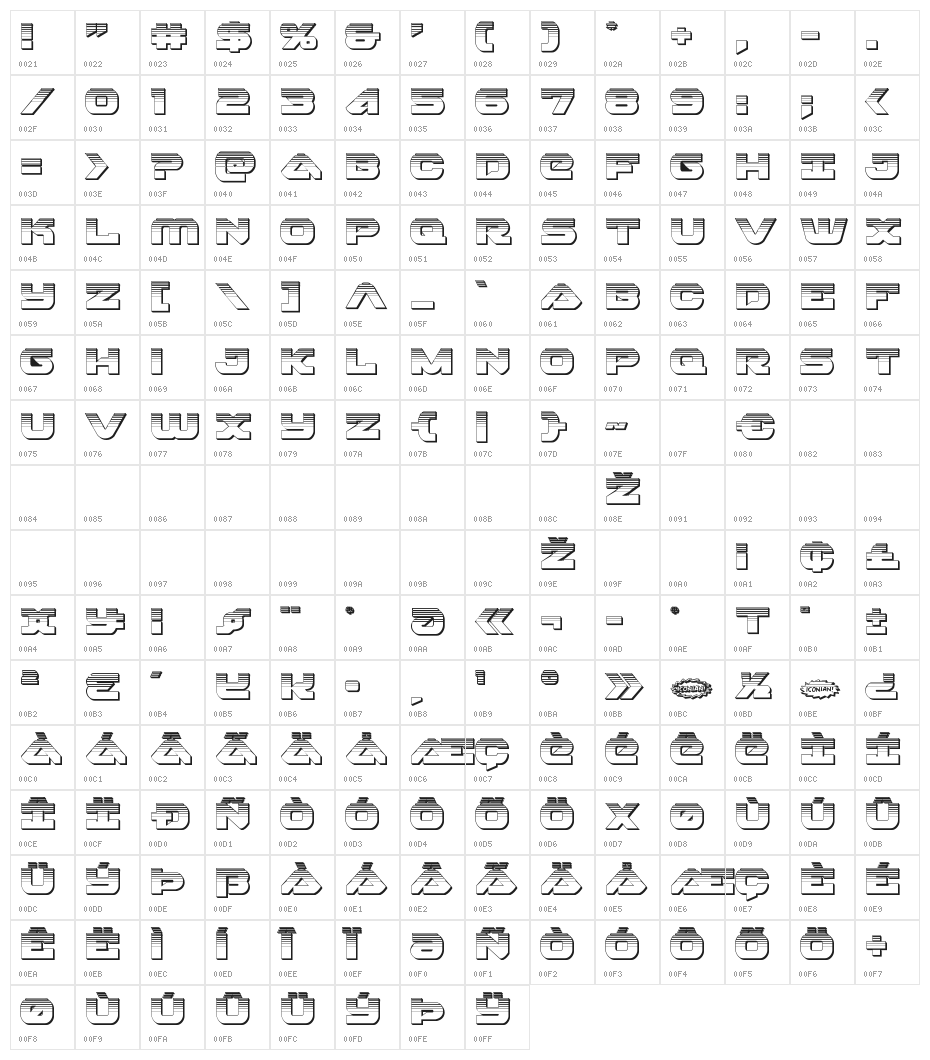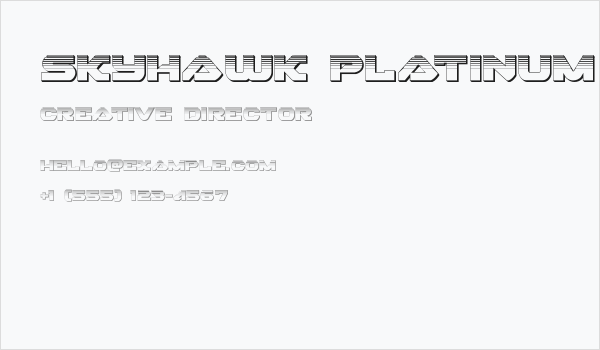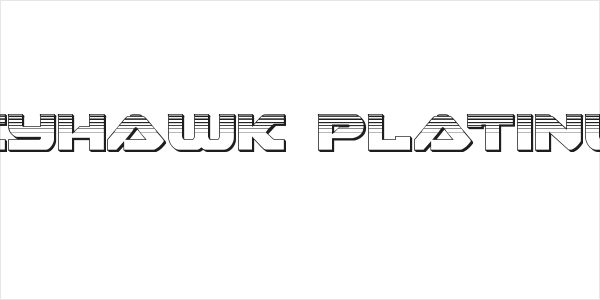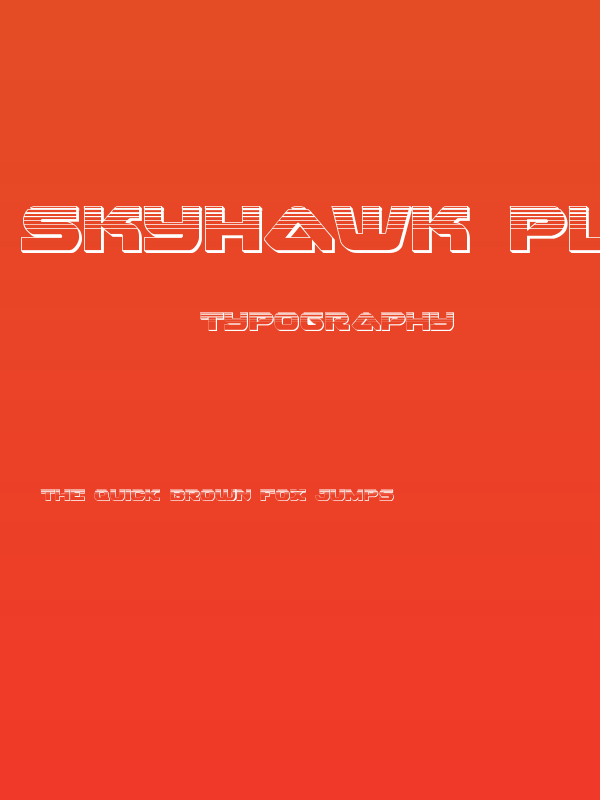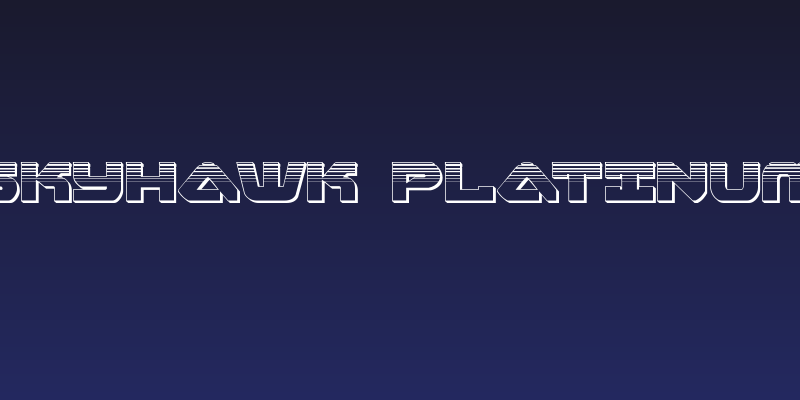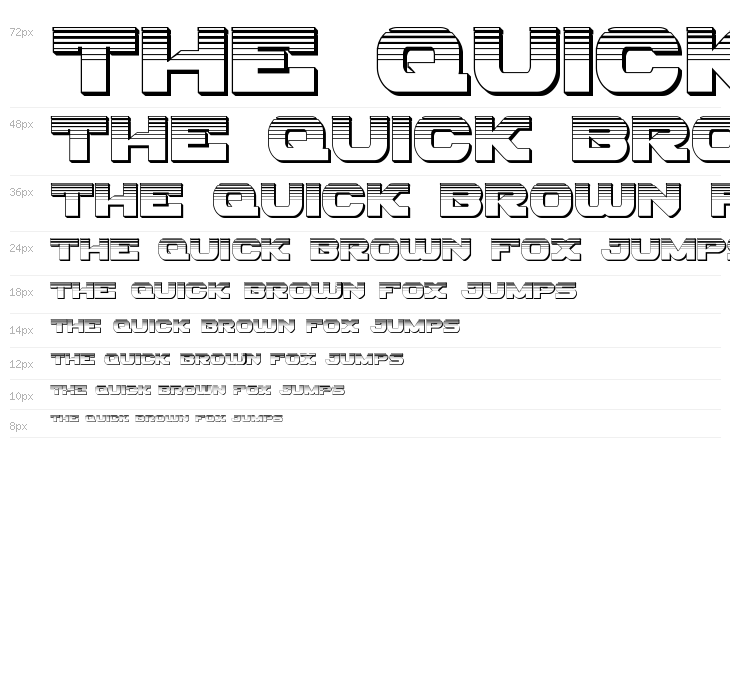
Skyhawk Platinum Font
Skyhawk Platinum Description
This font features a bold, futuristic design with a distinct geometric style. The characters are outlined with a double line, creating a three-dimensional effect that adds depth and visual interest. The uppercase and lowercase letters maintain a consistent width, giving the font a uniform appearance. The numerals and special characters are designed to match the boldness and style of the alphabet, ensuring a cohesive look across all text. The font's unique aesthetic makes it ideal for projects that require a modern and eye-catching typeface.
| Proposed Projects | Ideal for sci-fi themed designs, video game titles, tech company logos, and modern advertising campaigns. |